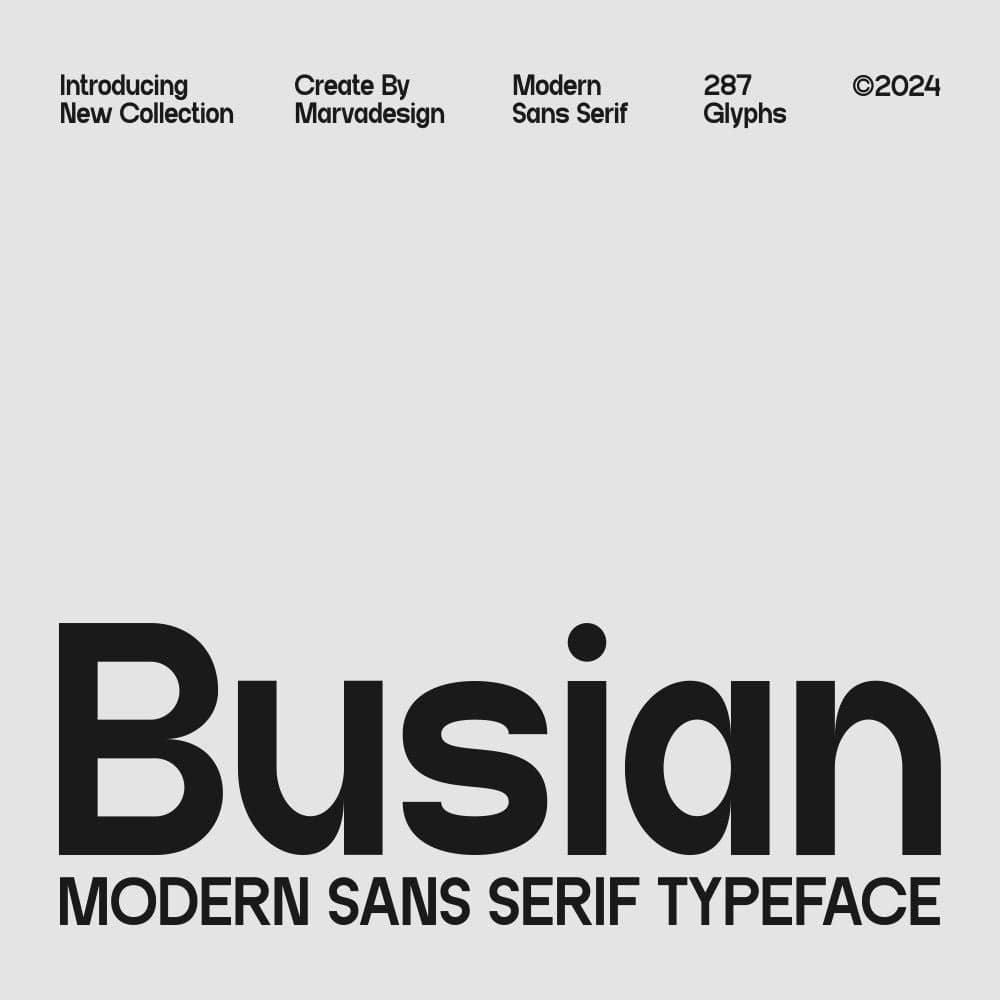
<p>Introducing <strong>Busian</strong> typeface is a modern sans-serif font characterized by its clean, bold, and highly legible design. With a geometric foundation, it exhibits smooth curves and a balanced structure, making it versatile for various design applications. The font includes both uppercase and lowercase letters, along with numerals, ensuring a complete typographic system for branding, editorial, and digital design.<br>Busian’s aesthetic is contemporary and minimalistic, with slightly rounded letterforms that soften its otherwise strong and structured appearance. This makes it ideal for fashion, technology, and corporate branding where a sleek and sophisticated look is required. The font maintains a consistent stroke width, enhancing readability while exuding a modern and professional feel.<br>With <strong>287 glyphs</strong>, Busian provides extensive typographic flexibility, supporting a wide range of design needs. Its bold weight and clear letterforms make it particularly effective for headlines, web interfaces, and promotional materials. Whether used in print or digital media, Busian delivers a refined and modern typographic experience.</p>